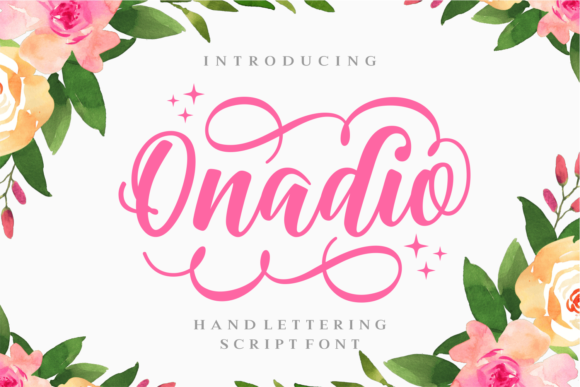
Onadio Script Font
A contemporary approach to design, handmade natural, suitable for use in title design such as clothing, invitations, book titles, stationery designs, quotes, branding, logos,and more. Introducing Onadio Font. Onadio is a beautiful hand lettered script font. With it’s curly letters and swashes, Onadio will give your design a feminine  touch which is why you can use it for lots of creative ideas.